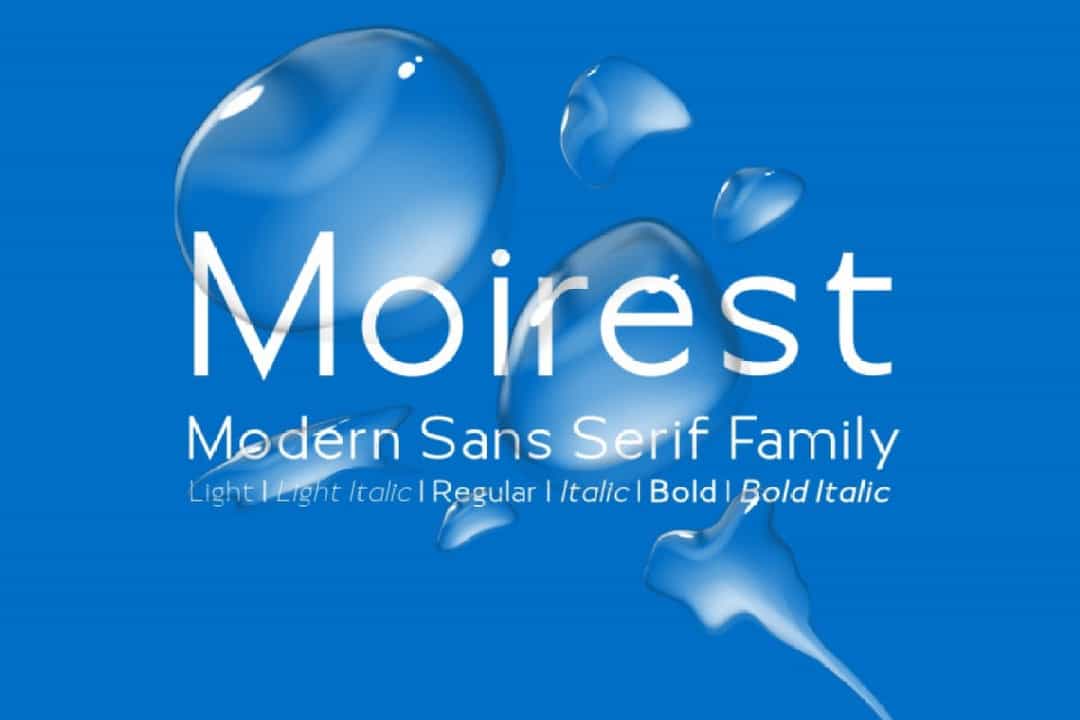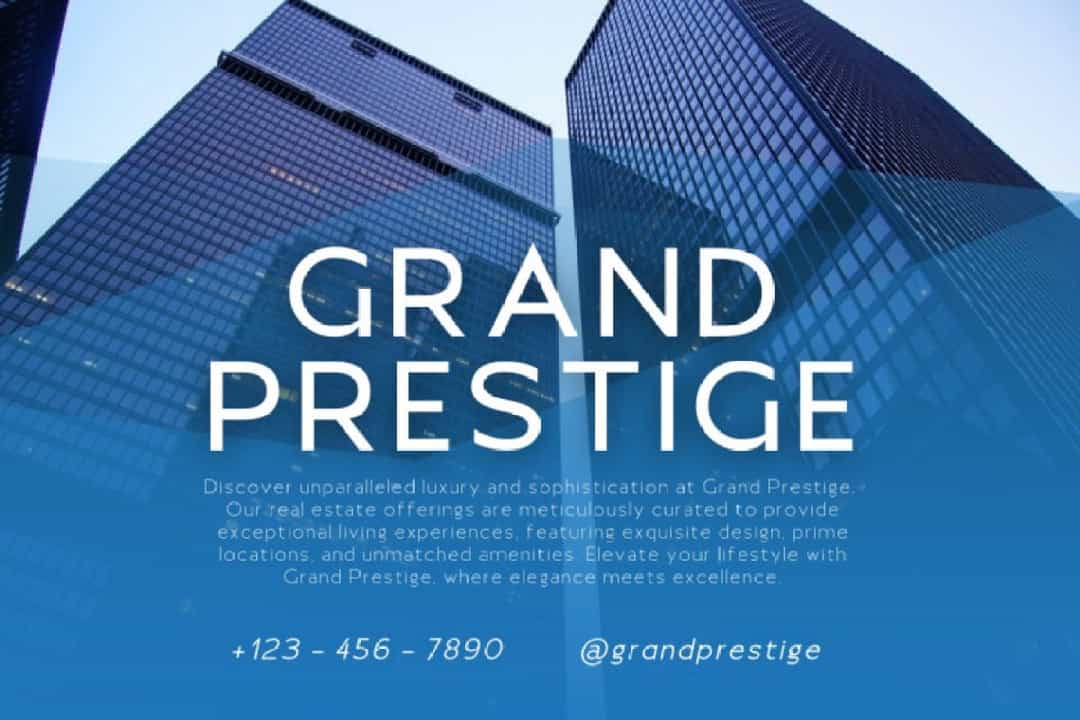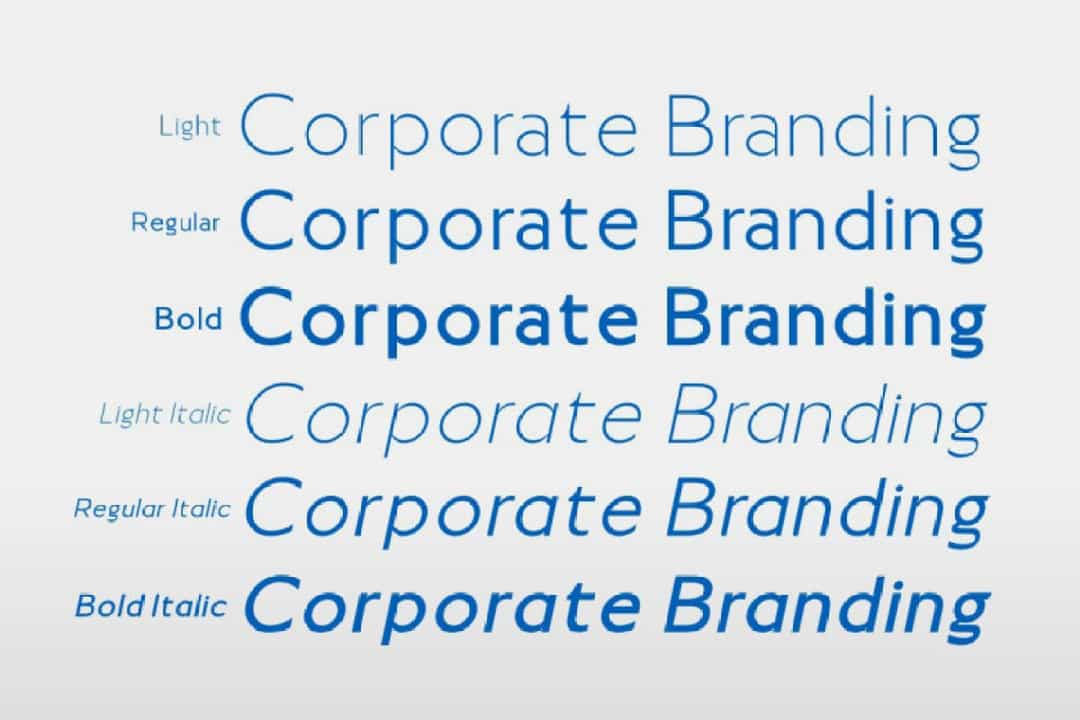
Moierst is a elegant and minimalistic sans-serif font family that is ideal for any design project that needs a business like and simple appearance. It comes in six different designs to suit any design requirement that the client may have. Moierst Light is a light and simple font that would work well for body text and design schemes with little to no ornaments. Moierst Light Italic gives the text a nice artistic slant which is ideal for quotes or slightly bolding some text.